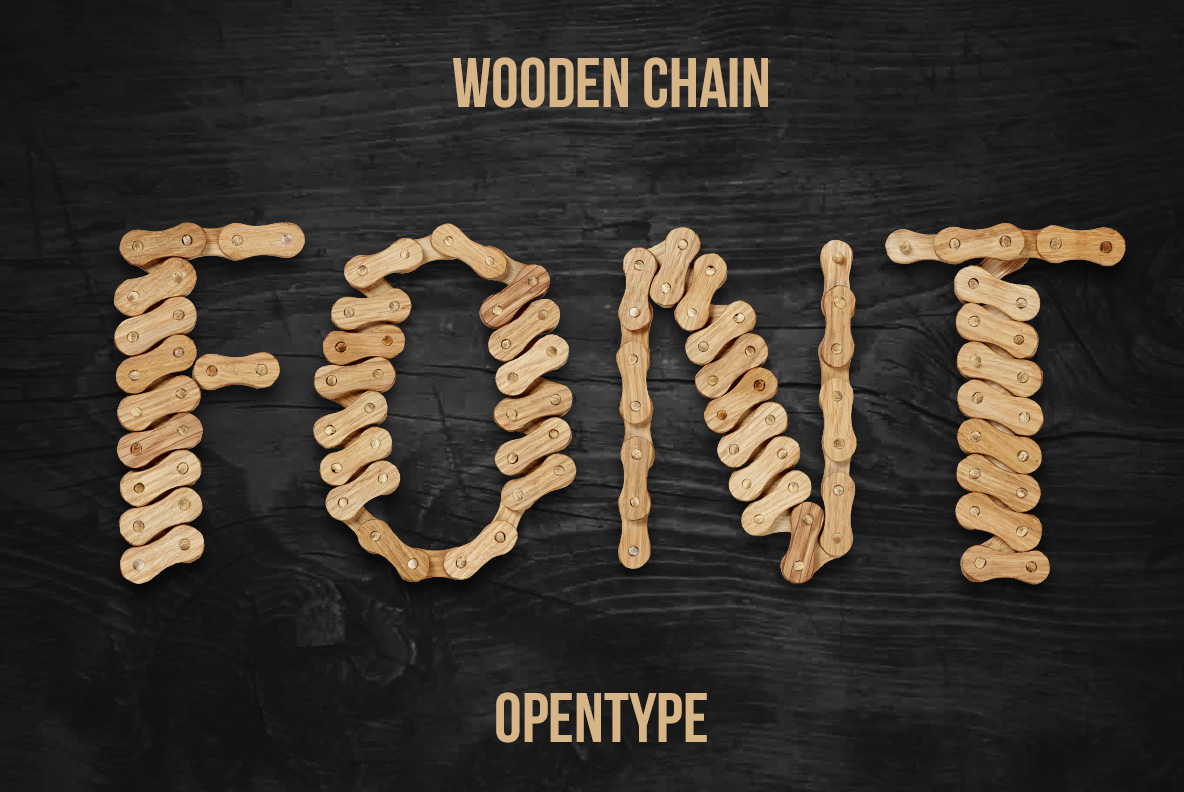
Wooden Chain Font – Handmade Wood Link Typography
Wooden Chain Font turns small connected wooden links into flexible, sculptural letterforms. The repeated wooden pieces create an unusual mechanical structure while preserving a warm natural texture, making this font ideal for experimental typography, creative branding, posters and distinctive display designs.